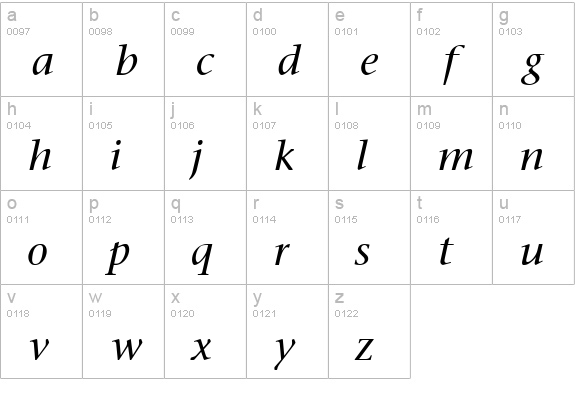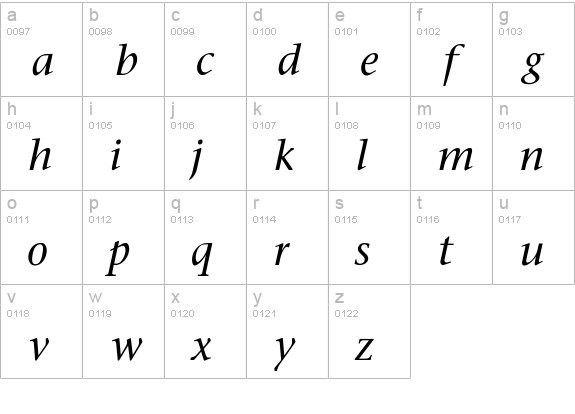
Stone Italic Font Details
Stone Italic is a distinctive, italic variant in the Stone typeface family \xE2\x80\x94 well suited to design and typography projects.
Stone Italic font is a classic and elegant typeface that exudes sophistication and style. Its beautifully crafted italics add a touch of flair to any design project, making it perfect for use in branding, invitations, and editorial layouts. With its clean lines and timeless appeal, Stone Italic font is sure to make a lasting impression. And the best part? Stone Italic font is available for free download at FontsMarket.com. So go ahead and elevate your designs with this stunning typeface without breaking the bank. Download Stone Italic font today and unleash your creativity!